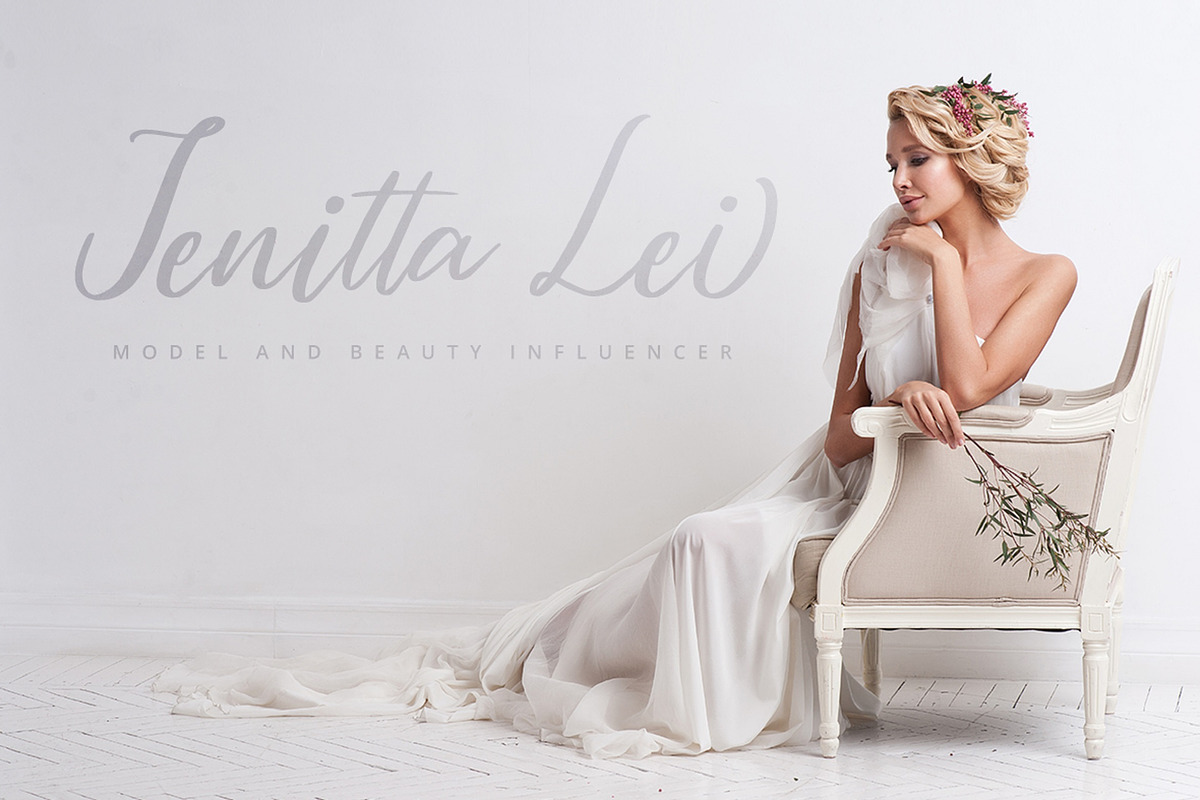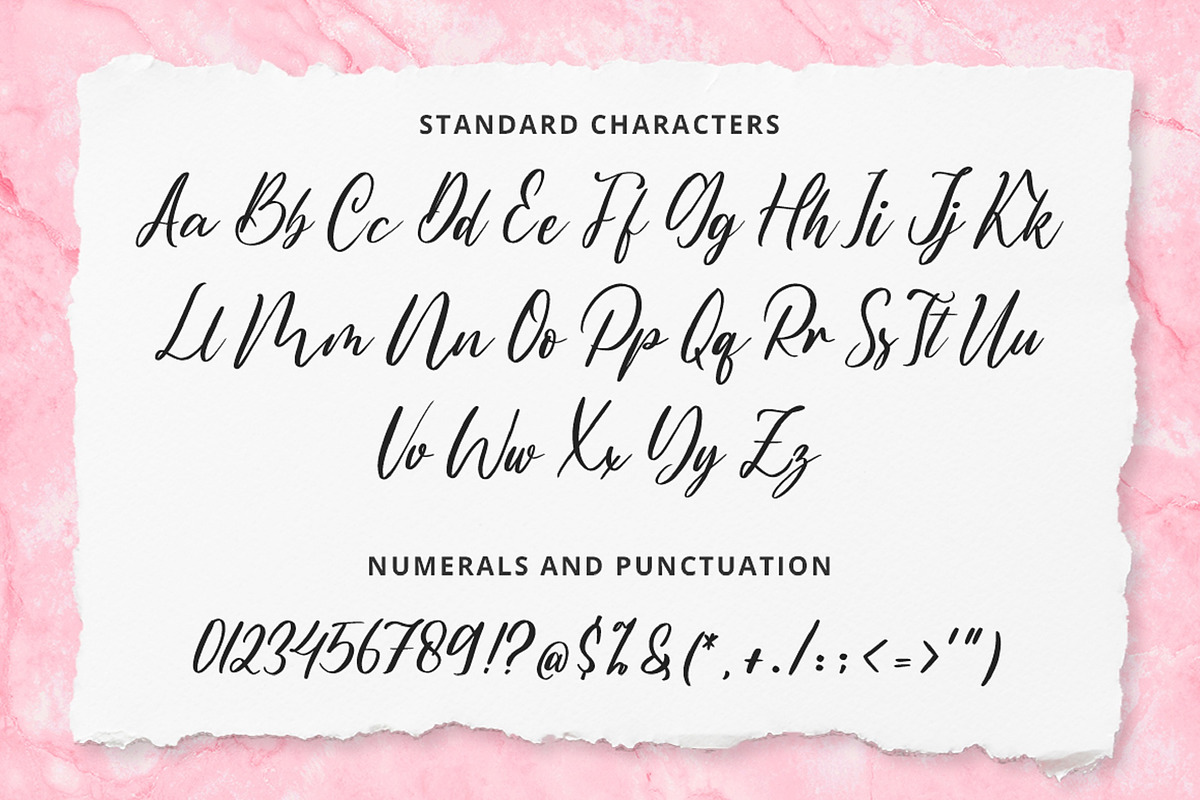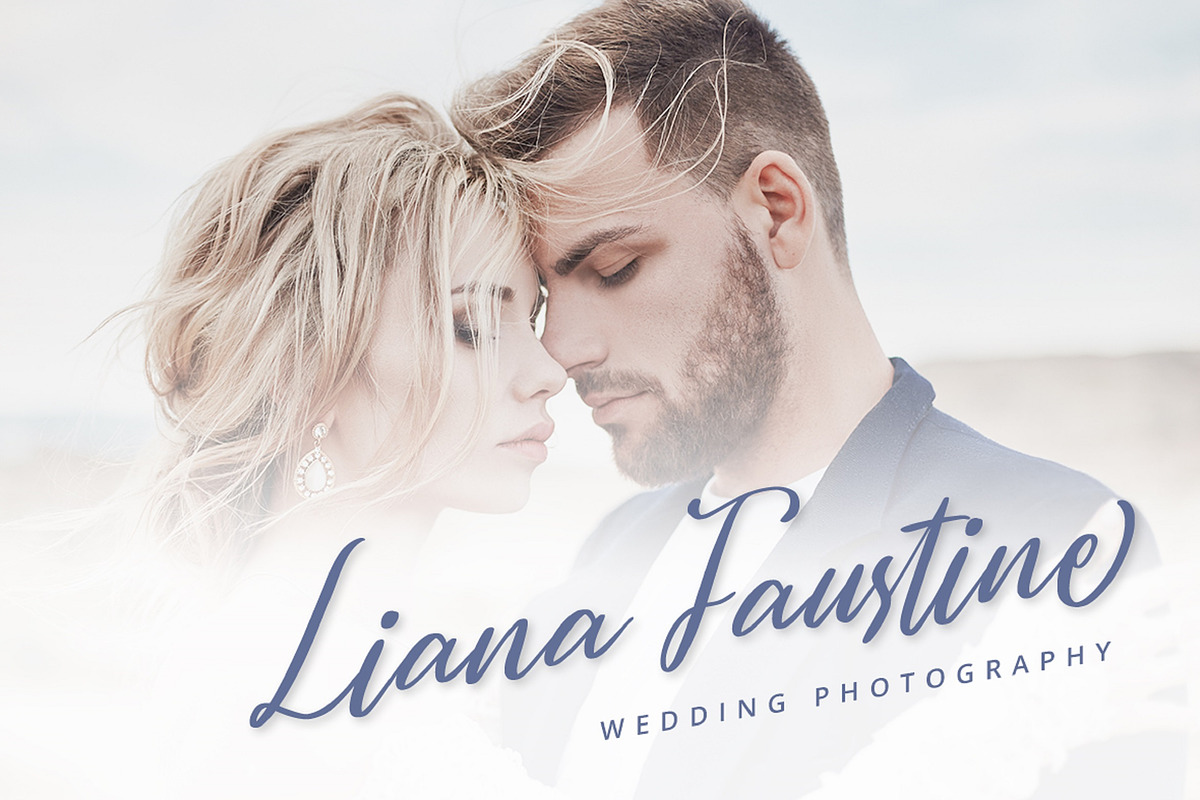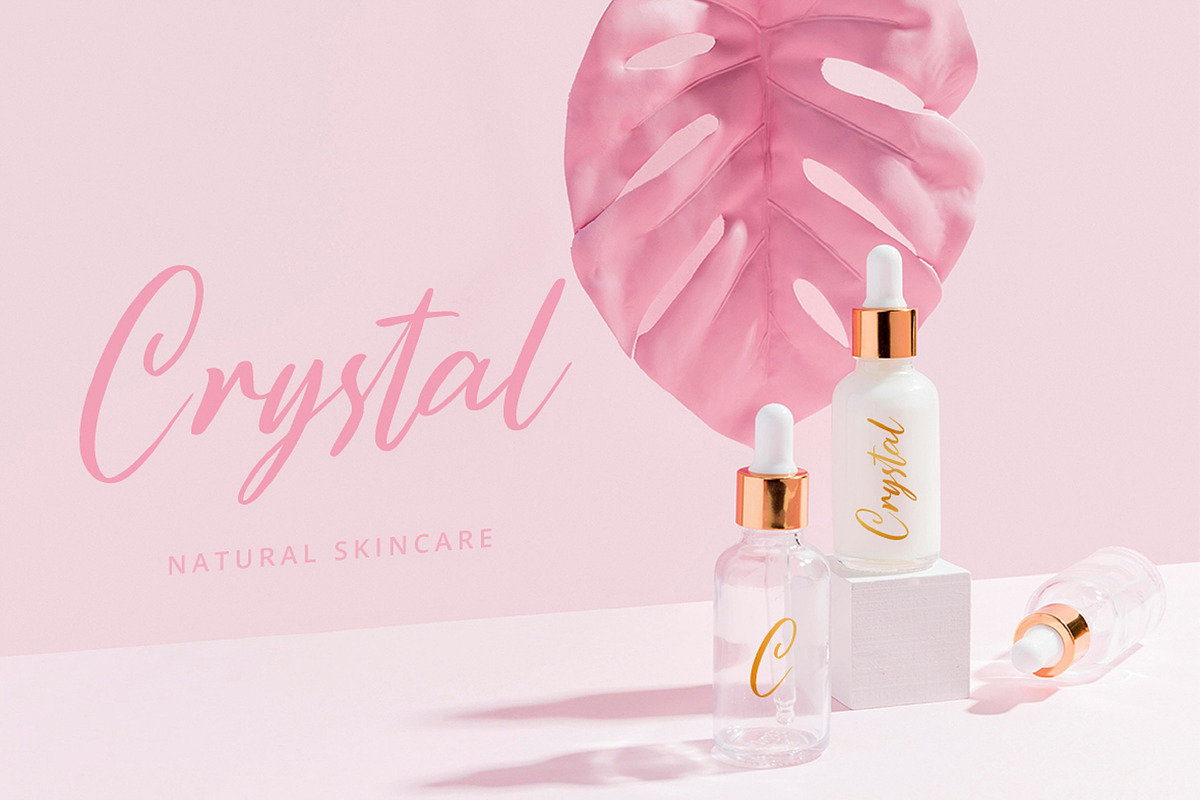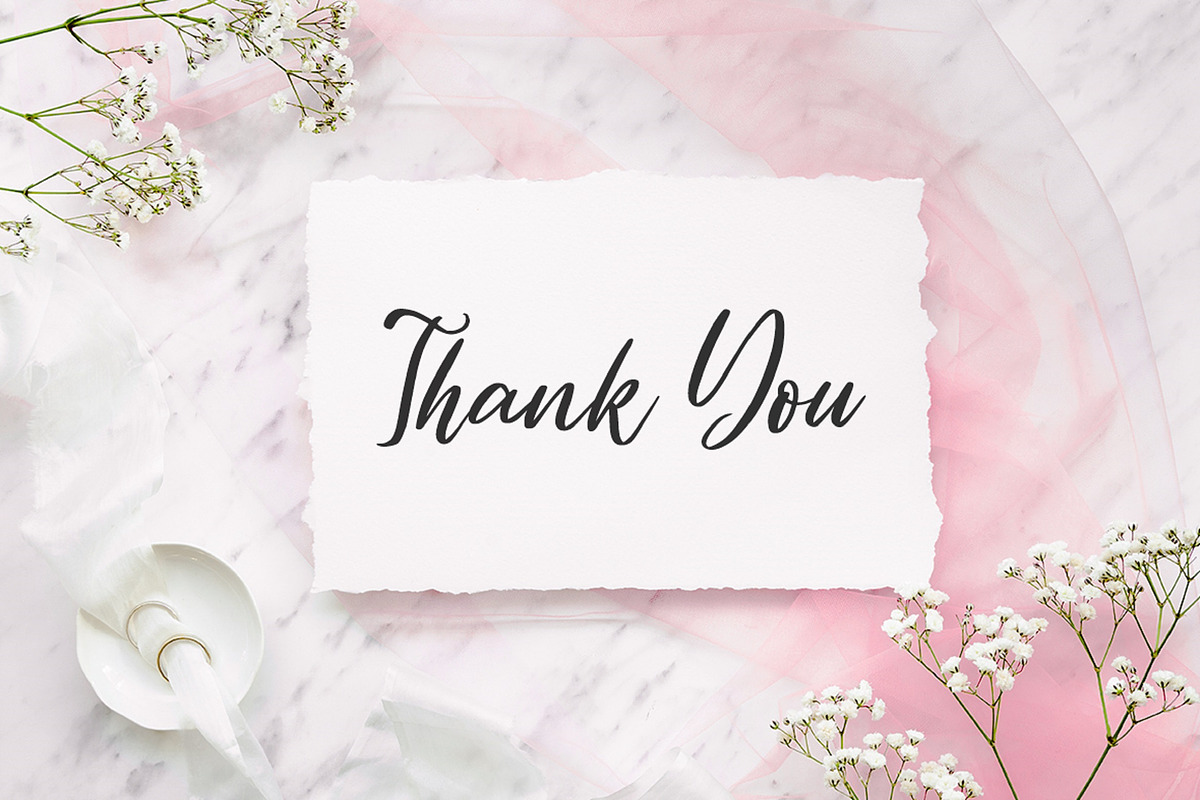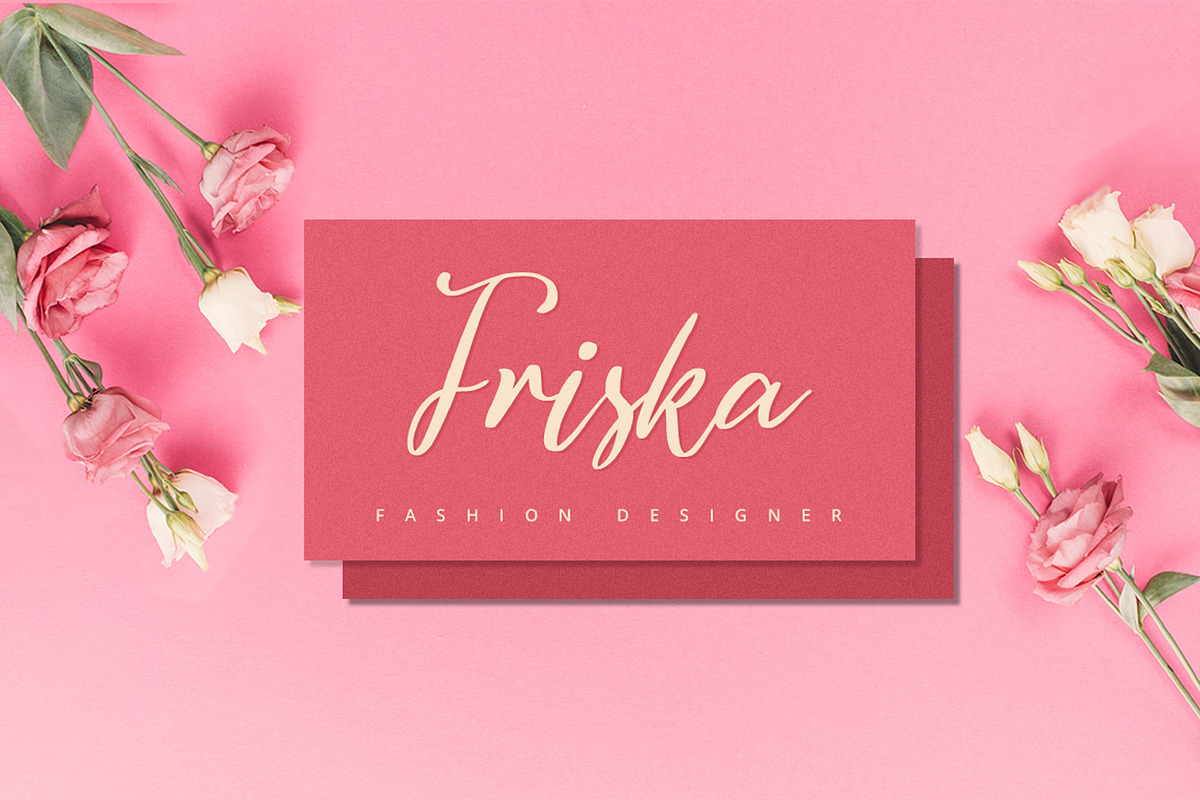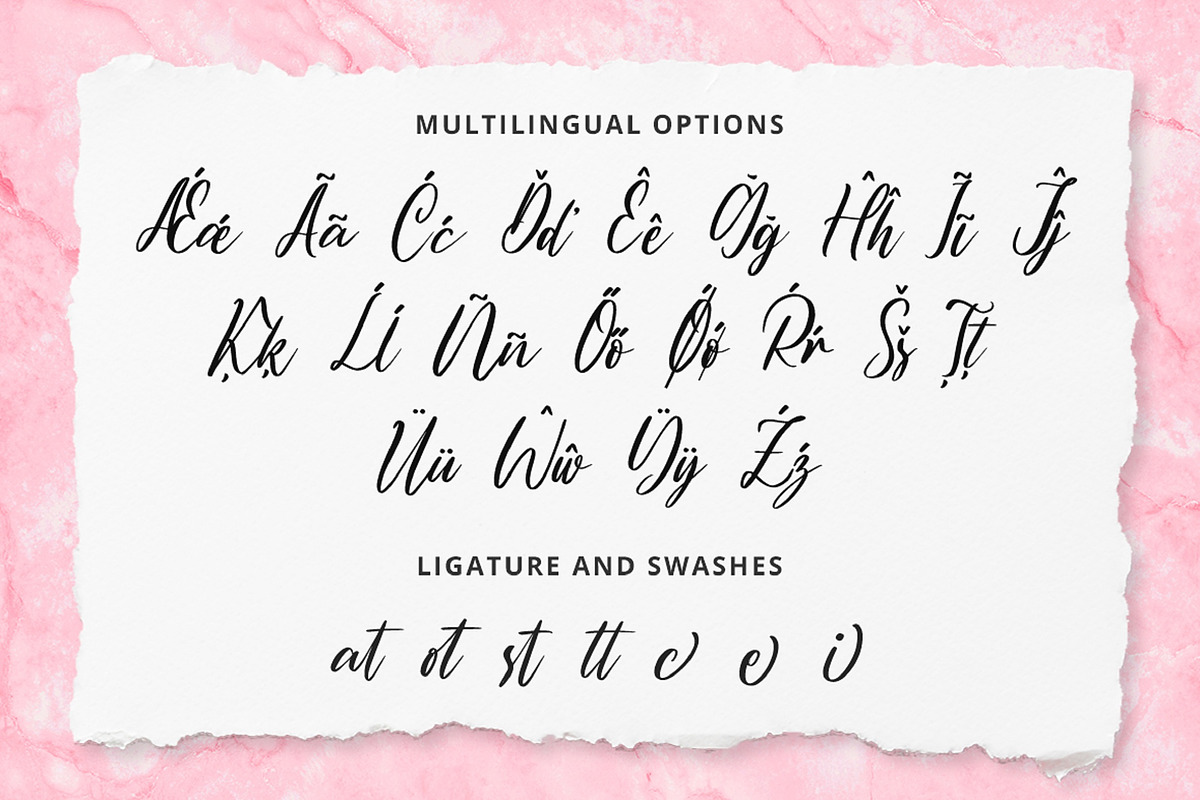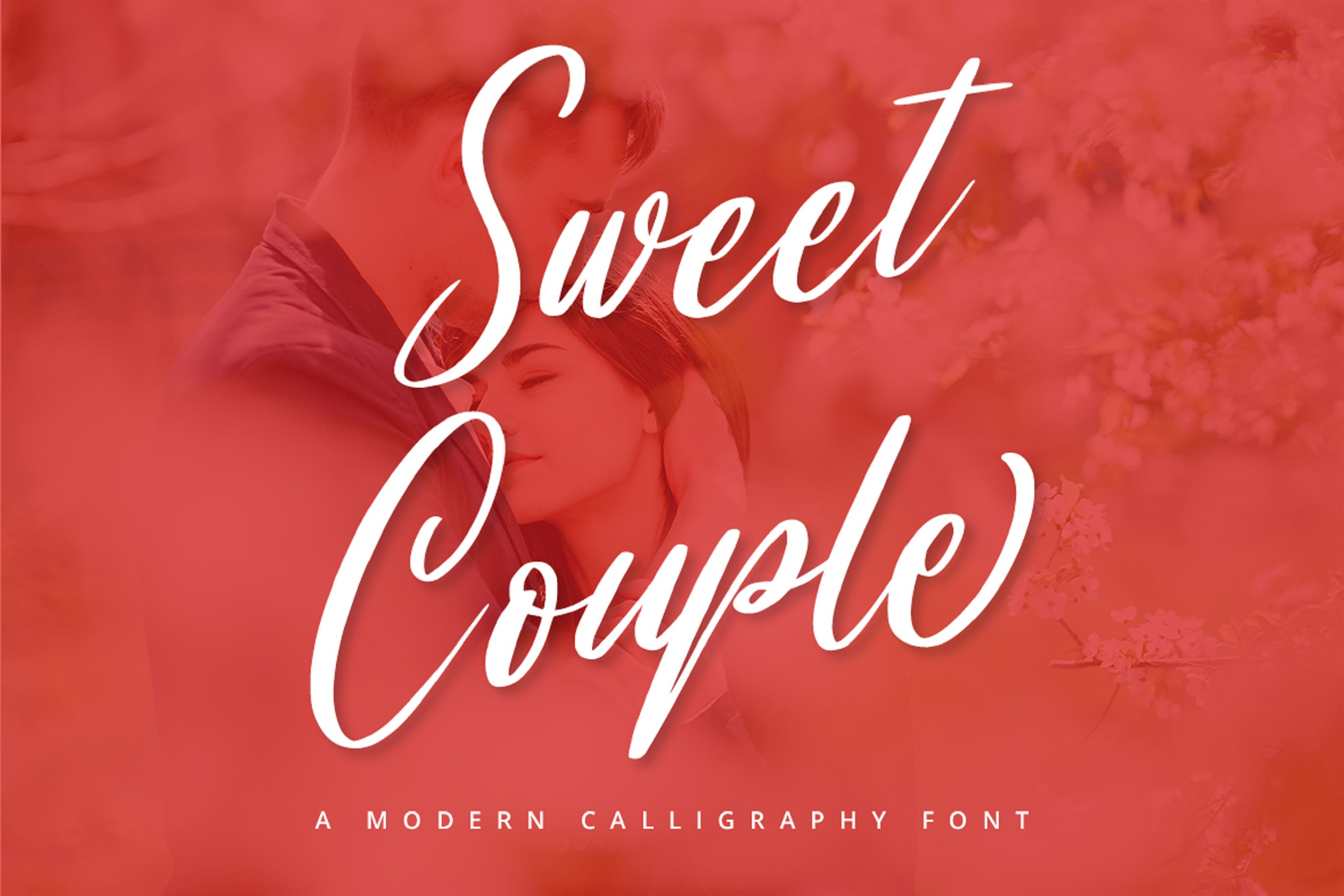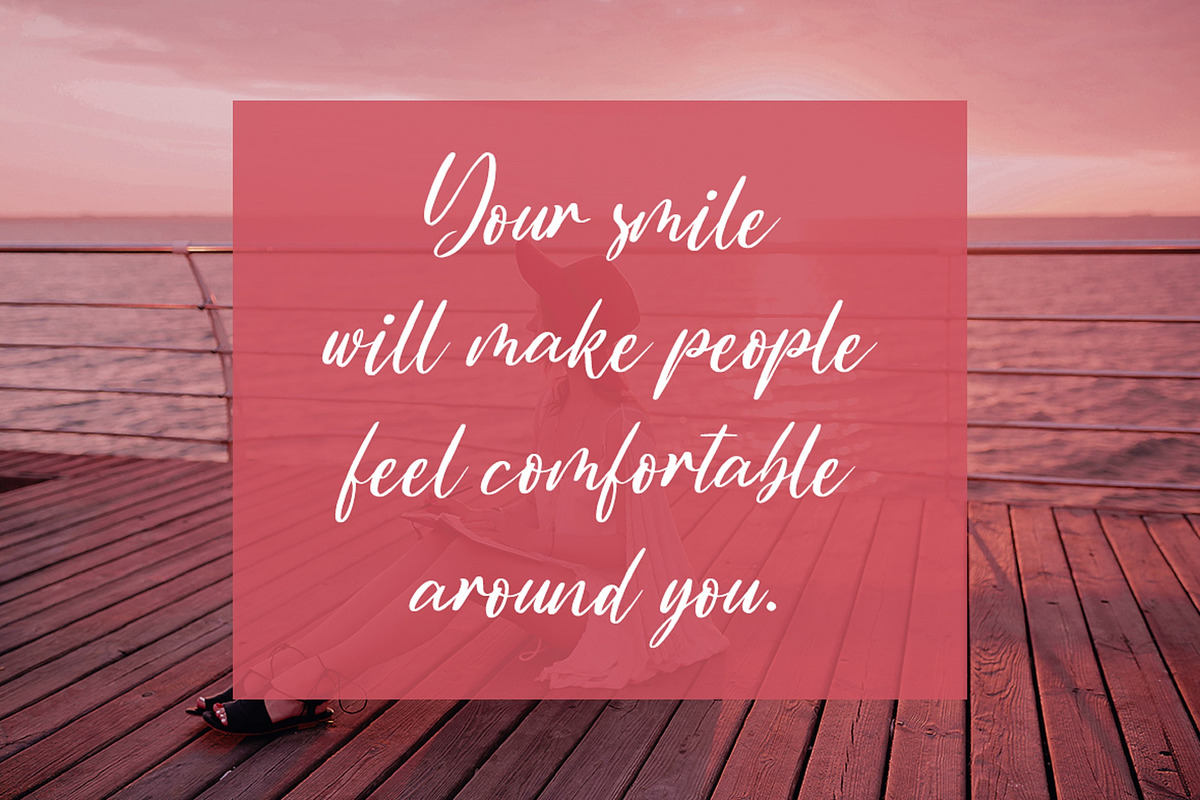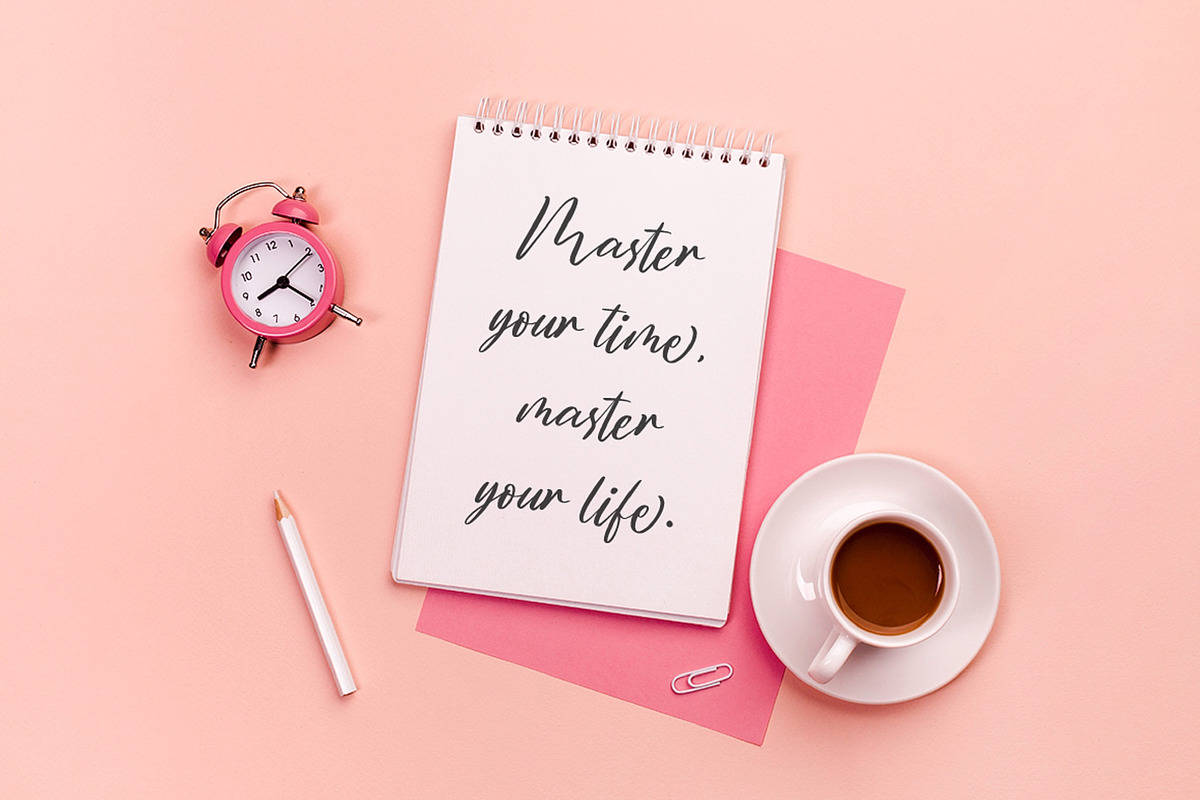
Introducing Sweet Couple - A Calligraphy Font
Sweet, lovely and most beautifully crafted Sweet Couple font that can be used on different projects and promotions. Go ahead and use it on your website, for your social media branding, Pinterest banners, printed materials, and more!
Inspire and give love to your audience, clients, or guests with this stylish Calligraphy font.
- Multilingual & Ligature Support
- Full sets of Punctuation and Numerals